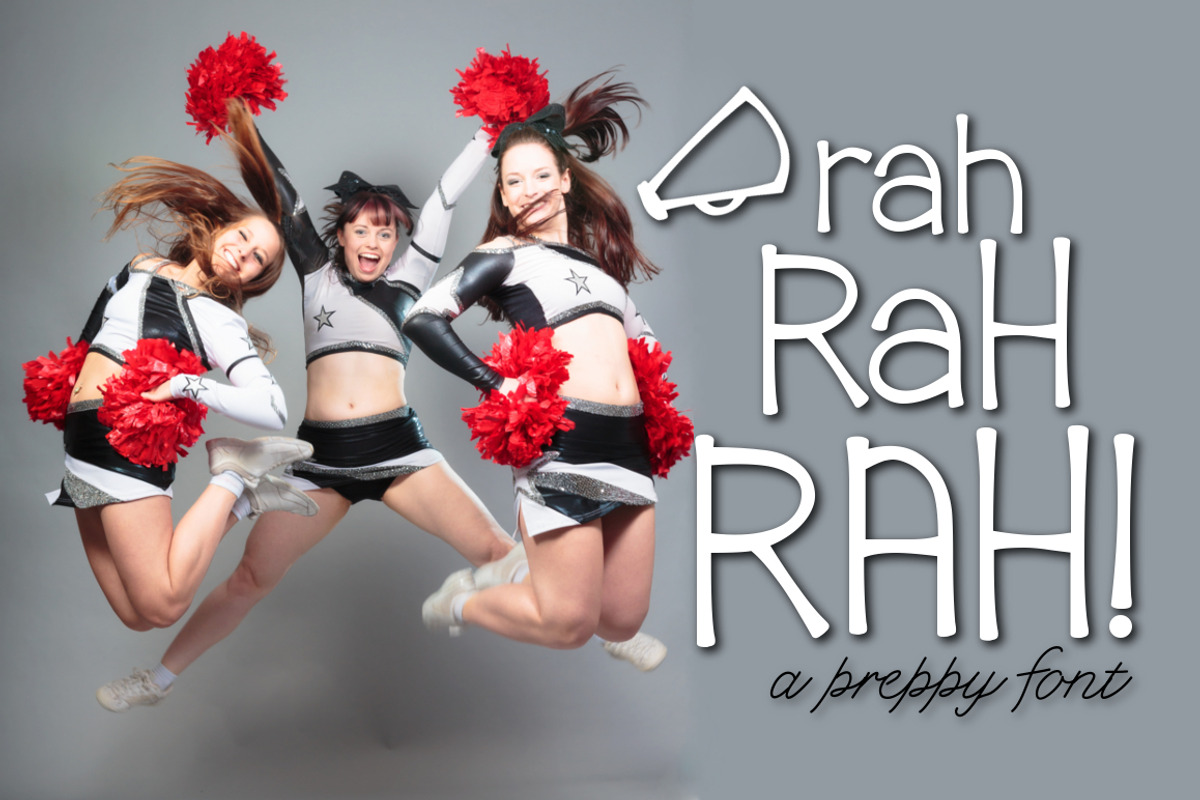
Rah Rah Rah a Preppy Font
This font is perfect to add to any project.
Why Rah Rah Rah a Preppy Font is worth a look
Rah Rah Rah a Preppy Font by Kitaleigh fits naturally into Branding, posters, packaging, typography.